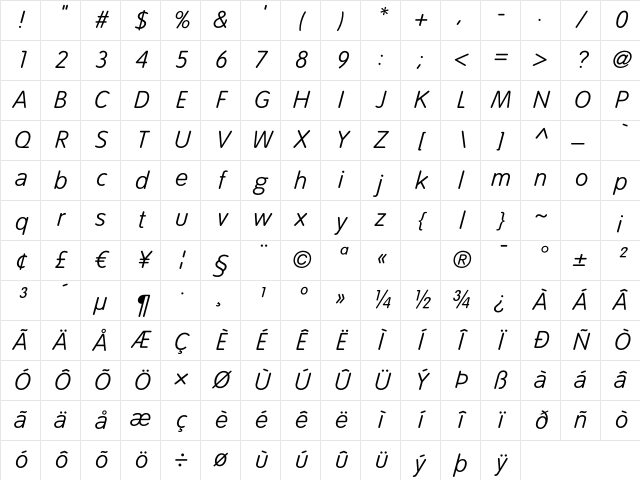
Tate ThinItalic
Style: ThinItalic
Tate Family
Tate ThinItalic
Design Context for Tate
Tate is a composed and adaptable typeface that performs quietly and consistently across a wide range of design contexts. The slanted form adds forward momentum and visual energy. Its slender proportions lend an understated elegance to any composition.
Pro Tip: Use Tate for emphasis, pull quotes, and subheadings where its slanted energy can add rhythm to the layout.